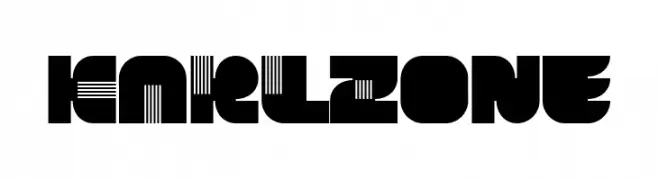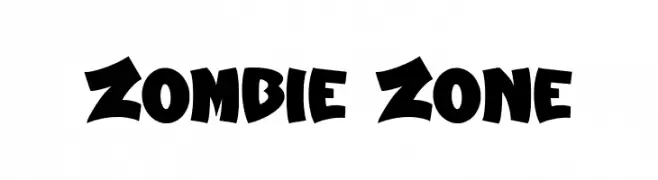
( Fonts by Muhammad Yafinuha )
A bold, playful font with exaggerated, irregular shapes and a dynamic appearance.
( Fonts by Ahwe Project )
A playful, decorative font with whimsical elements like stars and hearts.
( Fonts by vilogsign )
A bold and italicized font with dynamic curves and strong strokes.
( Fonts by vilogsign )
A bold serif font with a handcrafted, textured appearance.
( Fonts by vilogsign )
An elegant and classic italic font with smooth, flowing letterforms.
( Fonts by vilogsign )
A classic serif font with a vintage, hand-crafted appearance and moderate stroke contrast.
( Fonts by Tokokoo Studio )
A bold, geometric font with artistic cutouts and a modern flair.
( Fonts by Asep Rendi )
A bold, playful font with exaggerated curves and a cartoonish style.
( Fonts by Kong Font )
A playful dinosaur-themed font with bold, decorative letters.
( Fonts by Juha Korhonen )
A bold, eclectic display typeface with diverse styles and modern appeal.